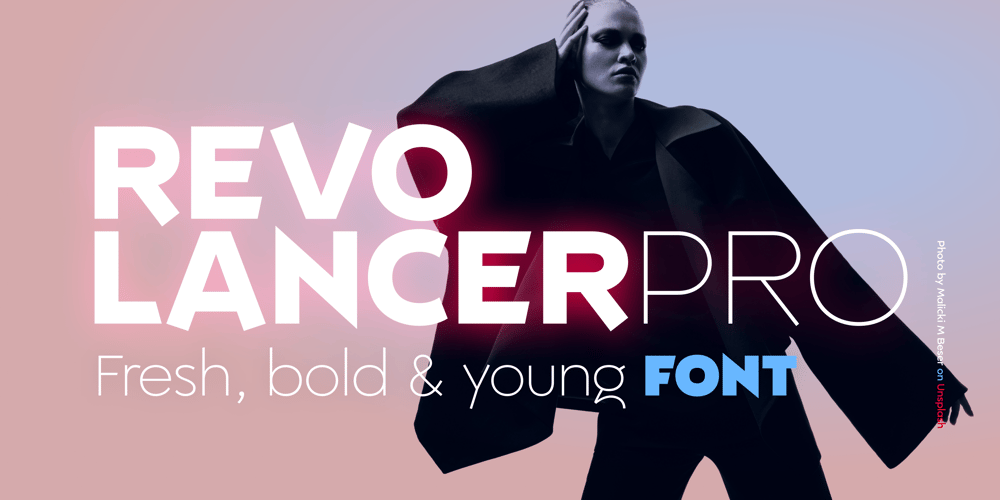
Revolancer Pro Font Family was designed by Alexey Popov and published by Popskraft. Revolancer Pro contains 9 styles and family package options. The Revolancer Pro font was designed in addition to the unique Revolancer font, so this font looks more familiar. But this is only at first glance. This typeface combines the simplicity of classic grotesque typefaces with the freedom and independence of a Revolancer typeface. This font will give you freedom. The freedom to be unique, not like everyone else. Each character in Revolancer font knows its place, and it is impossible to achieve such a smooth and organic flow of words using a regular font.